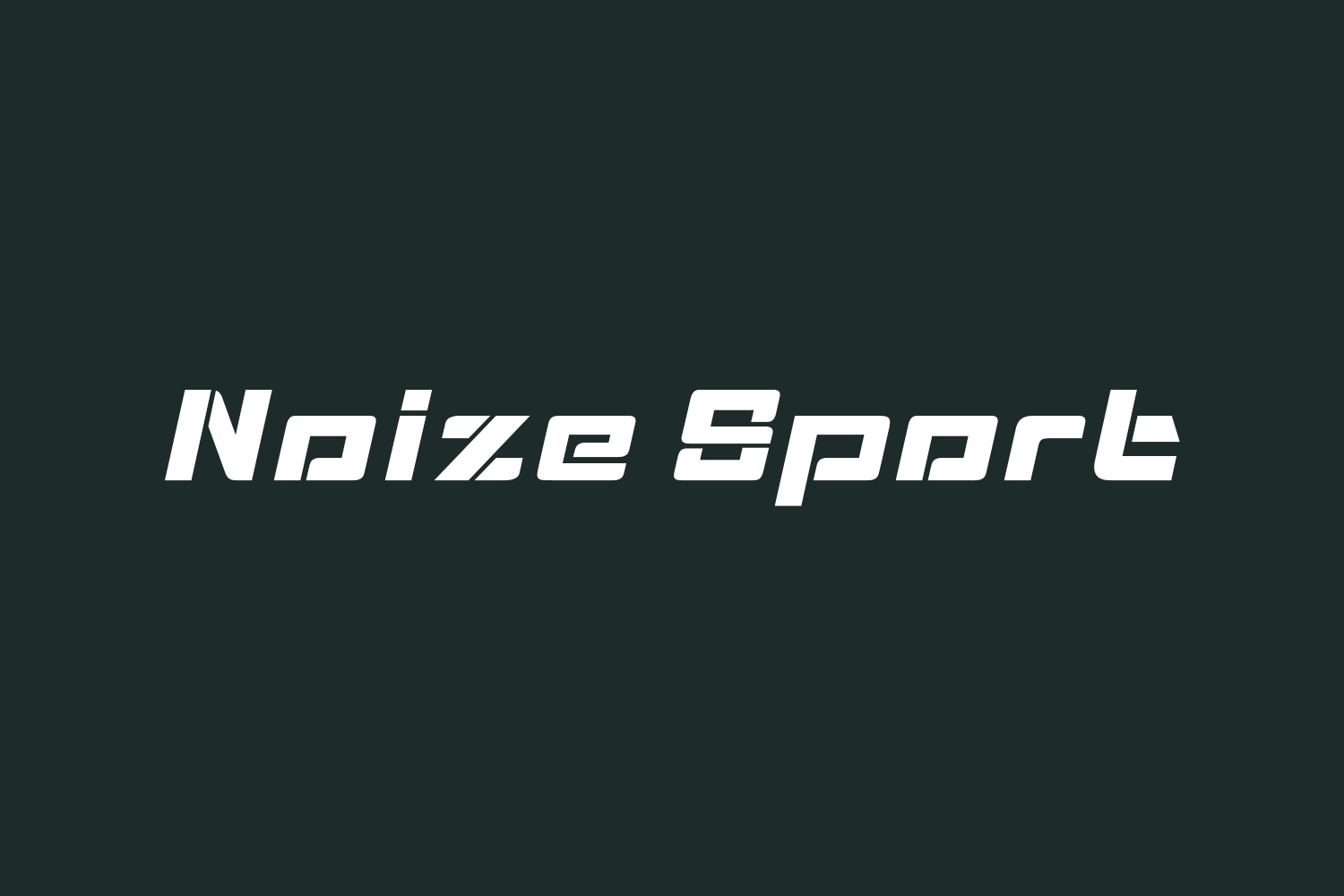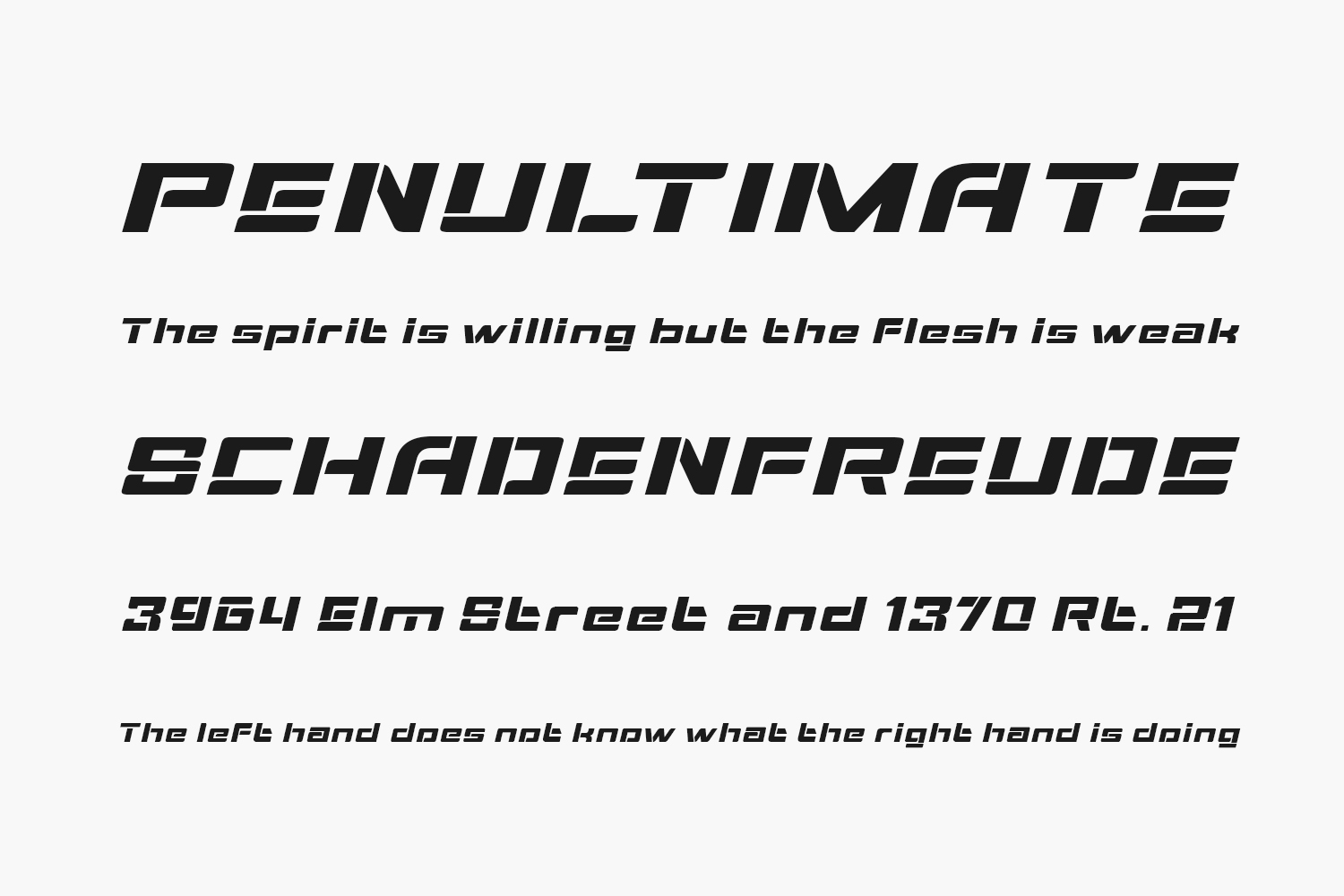
Noize Sport Free Font is a bold and electrifying display typeface that brings a touch of high-tech flair to your designs. With its futuristic aesthetic and dynamic lines, this font is perfect for sports and tech-related projects, as well as any design that demands a bold, impactful look. Its clean, sharp edges and sleek curves give it a modern, cutting-edge feel, while its sturdy construction makes it ideal for use in logos, headlines, and other eye-catching design elements. Whether you’re looking to create a sporty, energetic vibe or add a touch of tech-inspired cool to your designs, this typeface is a perfect choice.